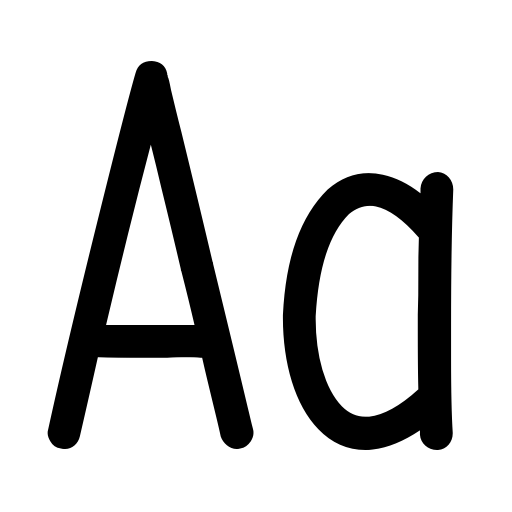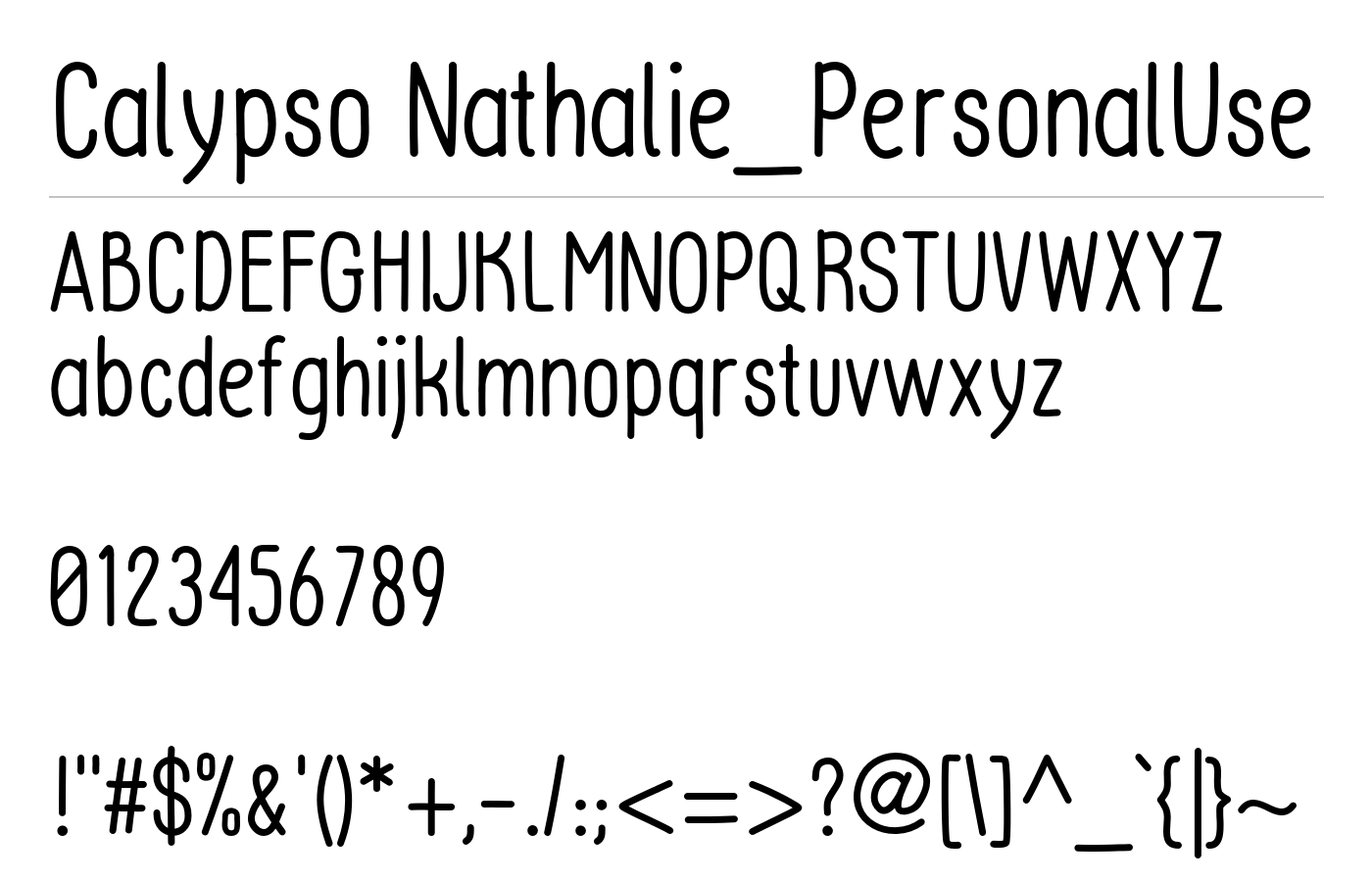
Calypso Nathalie is a narrow, hand-drawn sans serif font with a playful and approachable feel. Its tall, slightly irregular letterforms and consistent stroke weight give it a casual yet legible style, perfect for creative projects that need a friendly, informal touch. This font works well in branding, posters, and digital content where a relaxed and personable vibe is desired.
Calypso Nathalie_PersonalUse Font
About Calypso Nathalie_PersonalUse Font